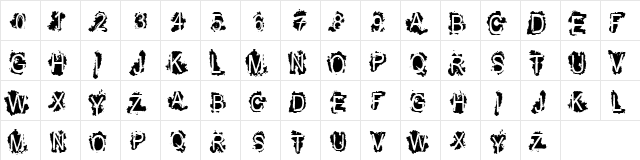
VTKS REFUSED Regular
| Foundry | douglas vitkauskas |
| Designer | douglas vitkauskas |
Design Context for VTKS REFUSED Typeface
VTKS REFUSED is a composed and adaptable typeface that performs quietly and consistently across a wide range of design contexts.